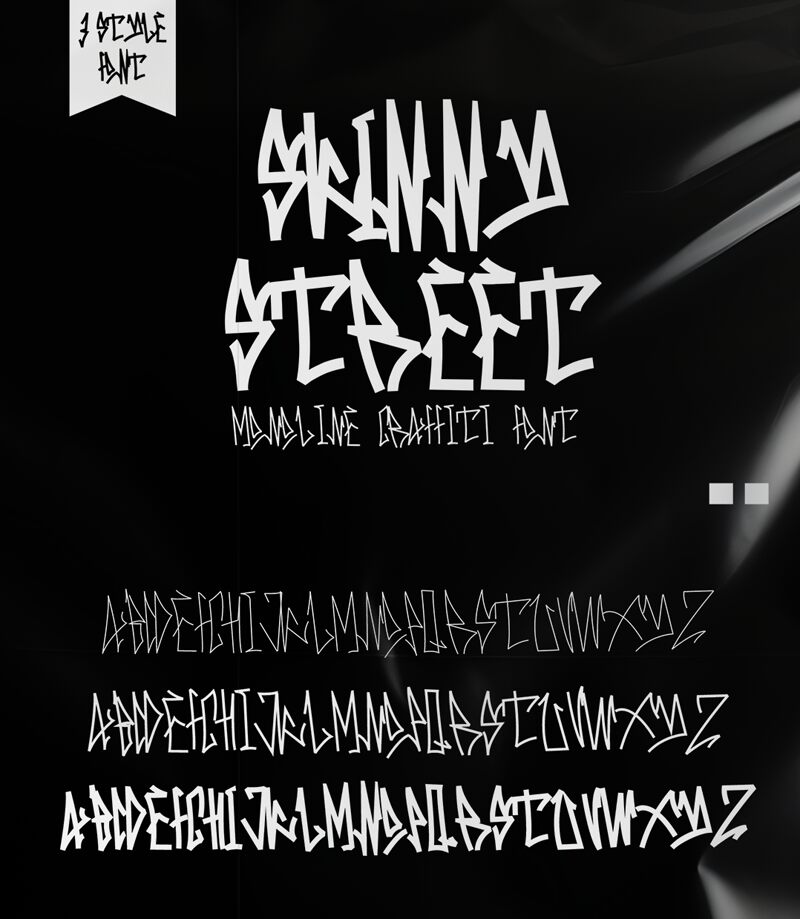
Skinny Street font family is a graffiti-inspired typeface designed by Cikareotype Studio. Comprising 6 font styles, it captures the dynamism, edginess, and nonconformist attitude of urban art. The angular characters and bold design elements make this a visually striking and expressive design element to any project. Exciting, contemporary designs can integrate this font family for instant character and personality.
All sorts of projects can use Skinny Street, but social media projects, t-shirt designs, branding, posters, product packaging, marketing materials, and advertisement design would benefit the most. In addition, hobby projects, sticker designs, and any urban projects are perfect opportunities to create with this font as well. With a truly characteristic look, it is essential to consider the font match to effect expectations.